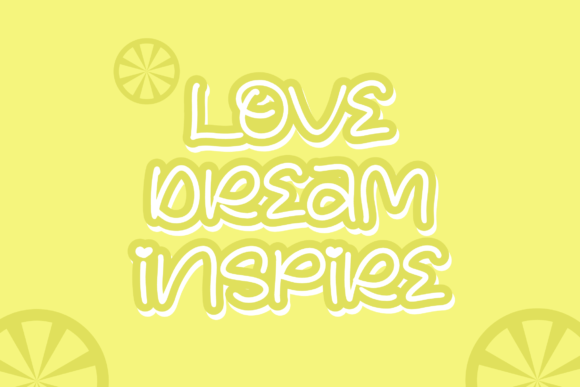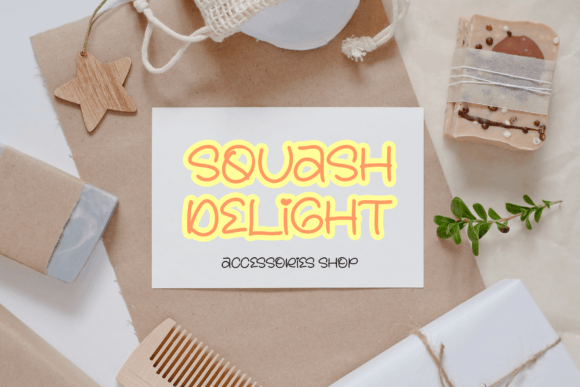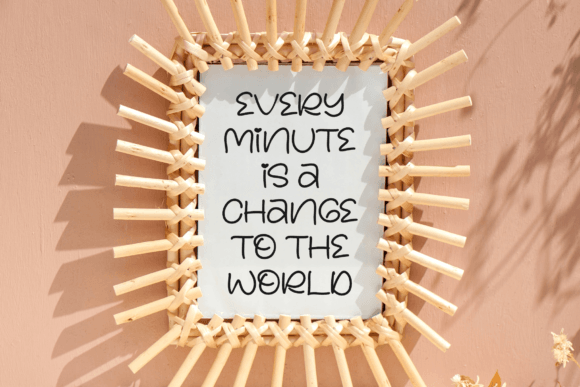
Introduction to Lemon Sunrise Font
As a designer, have you ever found yourself stuck in a creative rut, searching for the perfect font to elevate your project? Maybe it’s a logo design that needs a playful touch or a product packaging that requires a handwritten feel. I’m sure you’ll agree that the right font can make all the difference in bringing your vision to life.
That’s where the Lemon Sunrise Font comes in – a beautiful, high-quality script font that’s perfect for any creative project. With its transparent background and free download option, this design resource is a treasure trove for designers looking to add a personal touch to their work. Whether you’re designing homeware, creating product labels, or crafting a special event invitation, the Lemon Sunrise Font is sure to be a valuable addition to your design toolkit.
Key Features of Lemon Sunrise Font
- High-quality design: The Lemon Sunrise Font is designed with precision and care, making it perfect for any creative project.
- Unique characteristics: The Lemon Sunrise Font features a unique, hand-drawn design with a warm and inviting tone, perfect for adding a personal touch to your designs.
- Perfect design resource: This font is an excellent resource for designers looking to add a creative and eye-catching element to their projects.
Honest Review: Lemon Sunrise Font
As a designer, I’m always on the lookout for high-quality design resources that can elevate my creative projects. The Lemon Sunrise Font is one of the fonts I’ve recently discovered, and I’m excited to share my thoughts on it.
- The font has a unique and playful feel, making it perfect for designs that require a touch of whimsy.
- The high-quality design ensures that the font looks great even at larger sizes.
- The font may not be suitable for formal or professional designs, as it has a more casual tone.
- The font family is relatively small, so you may not have as many style options as you would with a larger font family.
Overall, the Lemon Sunrise Font is a great addition to any designer’s toolkit. While it may have some limitations, its unique feel and high-quality design make it a valuable resource for creative projects. If you’re looking for a fun and playful font to add some personality to your designs, the Lemon Sunrise Font is definitely worth checking out.
The Lemon Sunrise Font is ideal for creative projects, such as:
- Invitations and event materials
- Branding and marketing materials
- Blog posts and social media graphics
- Printable art and DIY projects